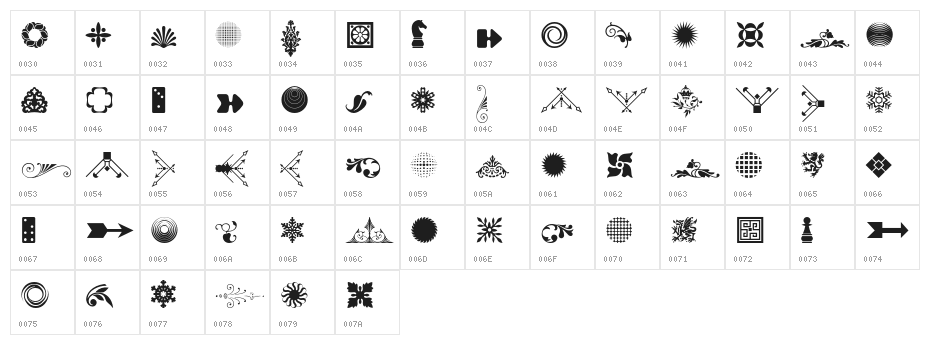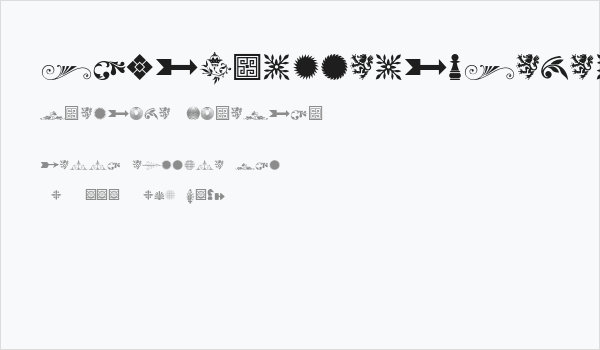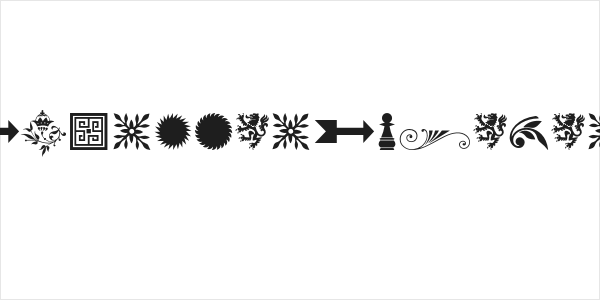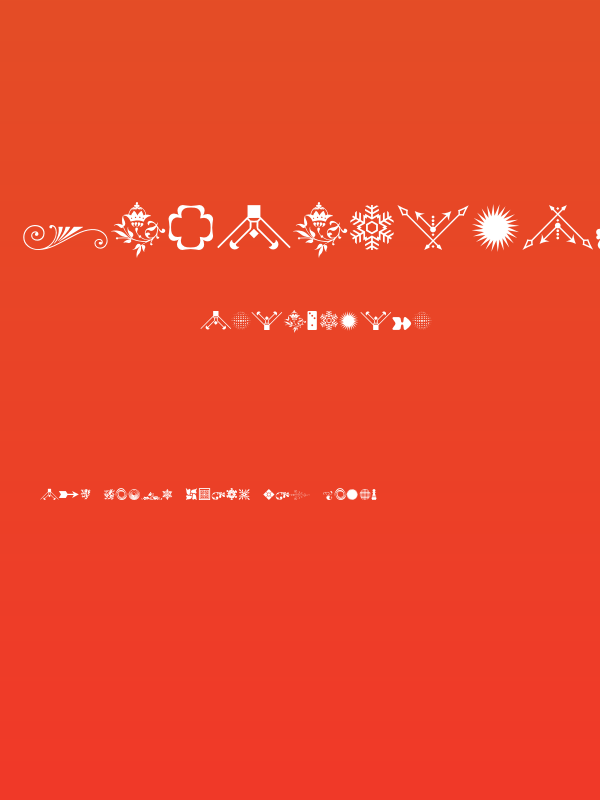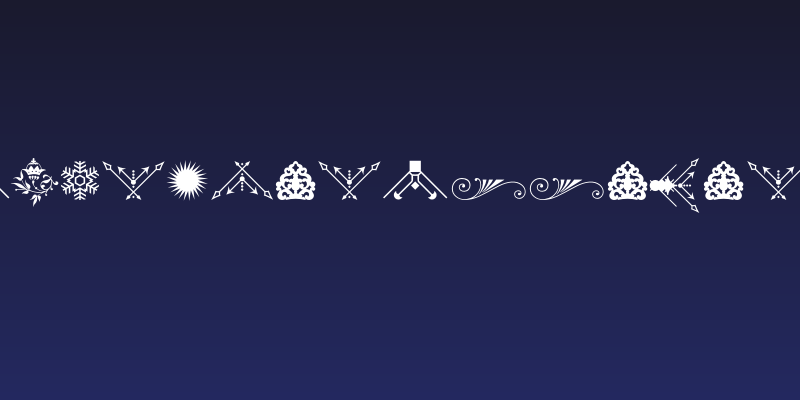
SoftOrnamentsSeventeen Font
SoftOrnamentsSeventeen Description
A decorative dingbat font featuring a variety of ornamental symbols, including floral motifs, geometric shapes, arrows, swirls, chess pieces, and intricate patterns. The glyphs are bold, highly stylized, and designed for embellishment rather than text communication.
| Overall Style | Decorative, Vintage |
| Use Case | Borders, embellishments, icons, design accents |
| Proposed Projects | Invitations, certificates, borders, scrapbooking, decorative dividers, branding accents, packaging, and digital art. |